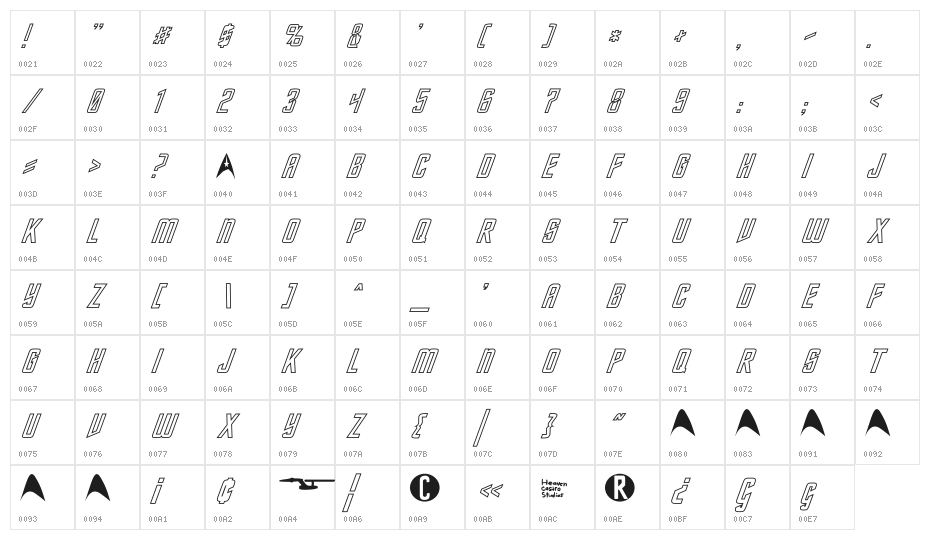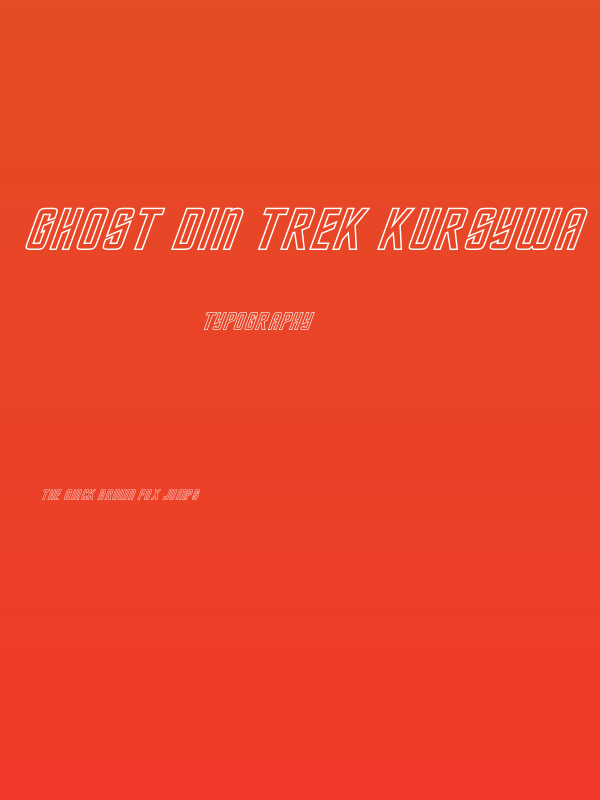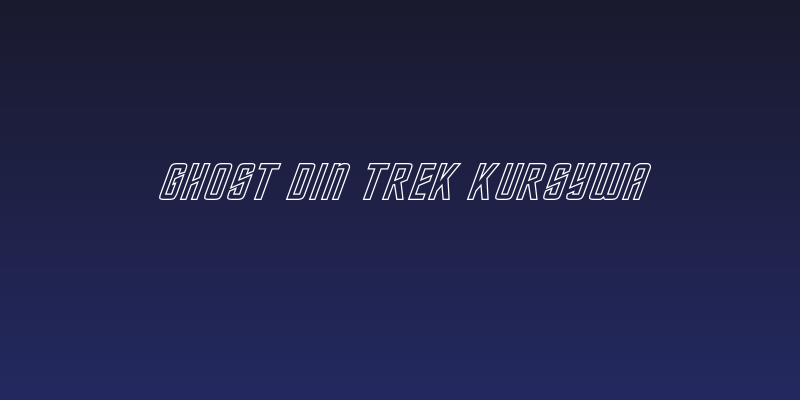
Ghost DIN Trek Kursywa Font
Ghost DIN Trek Kursywa Description
This font features a bold, geometric design with a distinct outline style that gives it a futuristic and dynamic appearance. The characters are slightly slanted, adding a sense of motion and energy. The uppercase letters are uniform in height, while the numerals and special characters maintain the same stylistic approach, ensuring consistency across all glyphs. The font's clean lines and sharp angles make it highly legible, even at smaller sizes. Its unique style is ideal for projects that require a modern and edgy look.
| Proposed Projects | Ideal for sci-fi themed designs, video game titles, posters, and branding that requires a modern edge. |